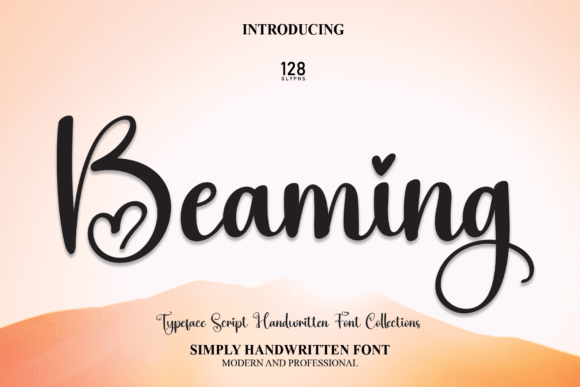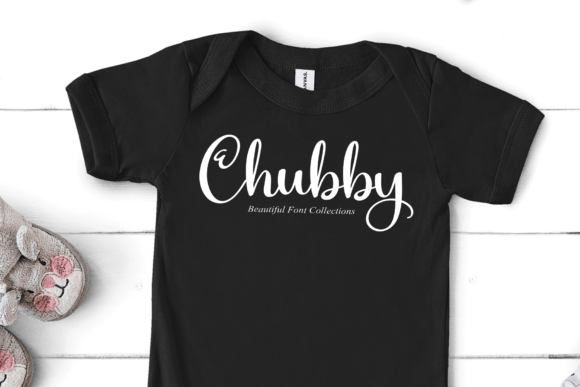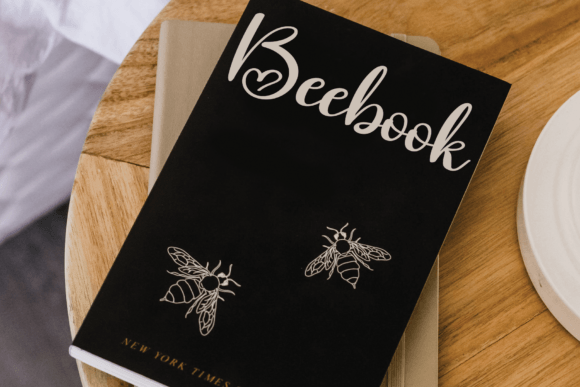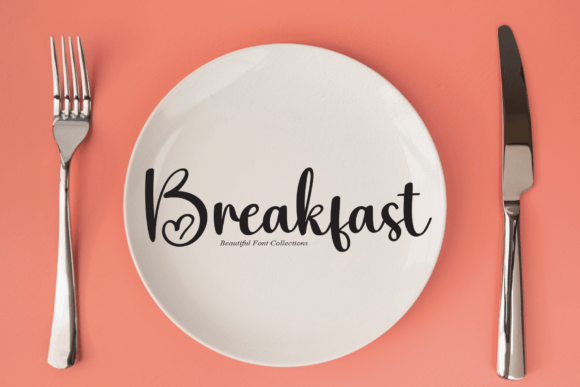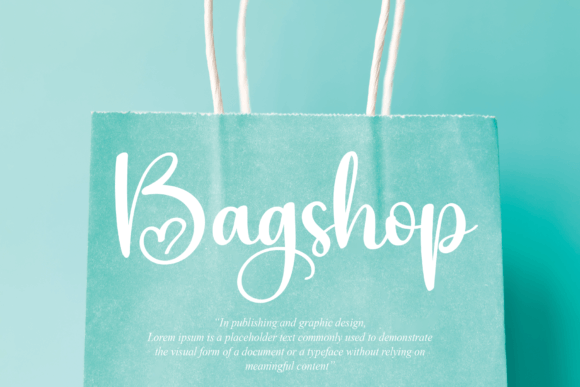
About Beaming Font
“Beaming’s latest style letters bring a perfect blend of charm and versatility, making them ideal for various applications. Whether for wall displays, wedding invitations, social media posts, logos, advertisements, product packaging, designs, labels, photography, watermarks, invitations, or stationery, these letters add a delightful handwritten touch to any project.
The appeal of Beaming’s latest style lies in its contemporary and versatile design, making it suitable for a wide range of creative endeavors. This font becomes a reliable choice for designers seeking a typeface that effortlessly combines a handwritten aesthetic with modern style.
Whether you’re creating an eye-catching logo or designing elegant wedding invitations, Beaming’s latest style stands out as a font that enhances the overall visual appeal. Its letters exude charm and adapt seamlessly to diverse design contexts.
Imagine Beaming’s latest style elevating your projects, bringing a handwritten taste that adds character and uniqueness. The font becomes the defining element that sets your designs apart, creating a visual experience that resonates with authenticity and style.
As you explore the nuances of Beaming’s latest style, you’ll discover its potential to transform ordinary projects into visually captivating expressions. Let it be the font that infuses a touch of handwritten charm into your creative vision, making your designs stand out with a delightful and versatile aesthetic. With Beaming’s latest style, every letter becomes a brushstroke of modern elegance.”